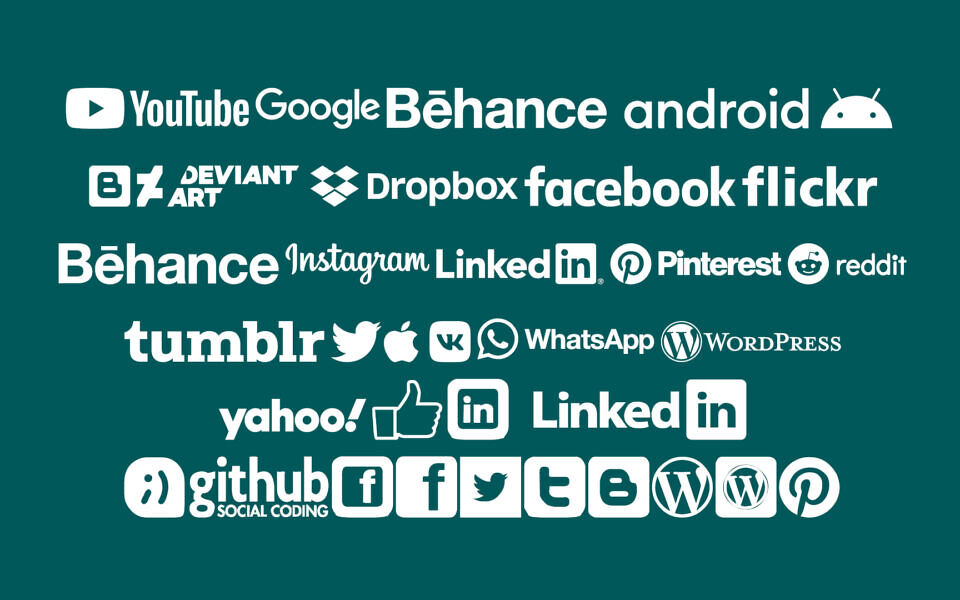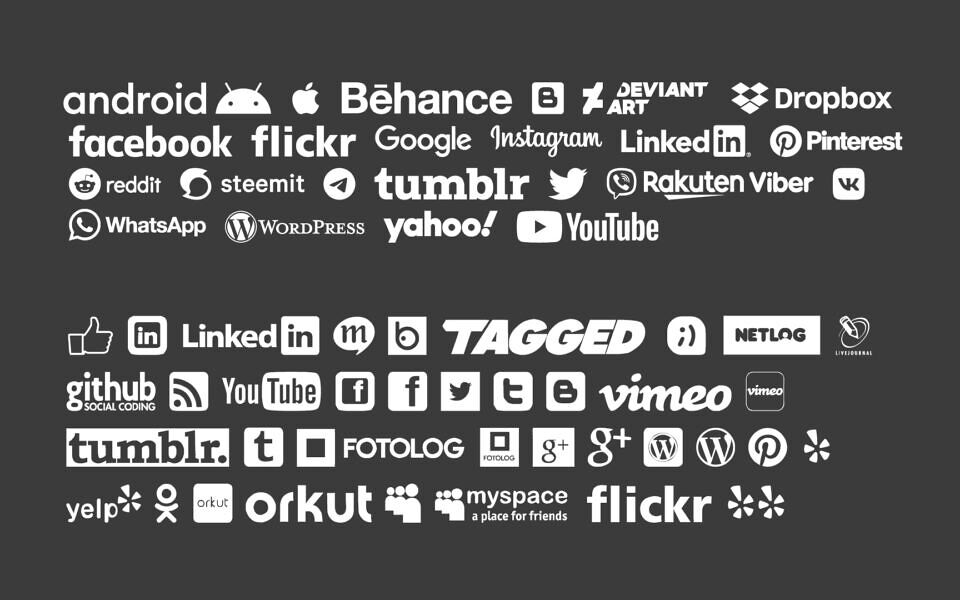
Enhance your design projects with this ultimate collection of social media icon fonts! Featuring two essential icon sets—Social Logos by ArFonts and Social Logos TFB by zanatlija—this package gives you instant access to dozens of crisp, scalable vector glyphs.
Perfect for websites, business cards, and marketing materials, these dingbat fonts include popular logomarks like Facebook, Instagram, YouTube, and X. Streamline your workflow by typing your favorite social media icons directly into any project!